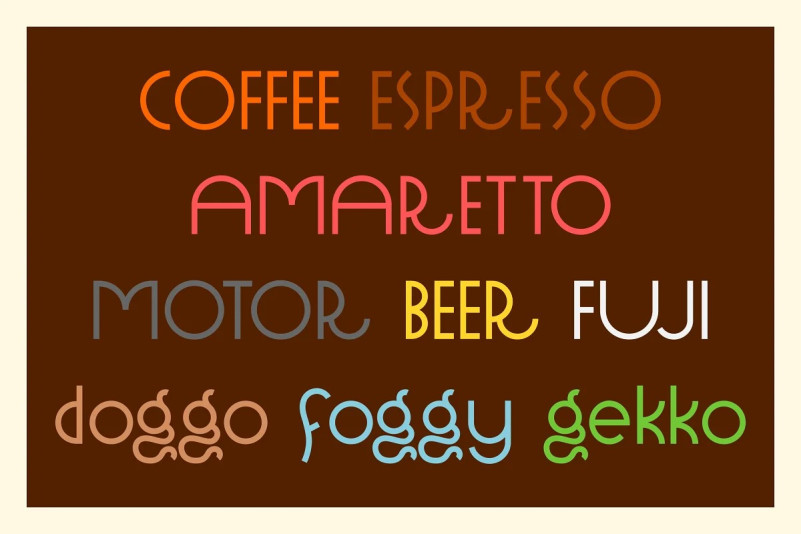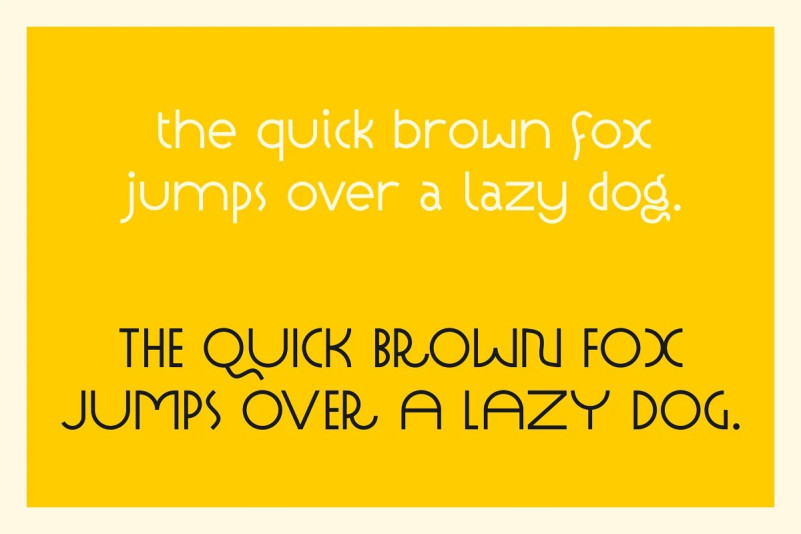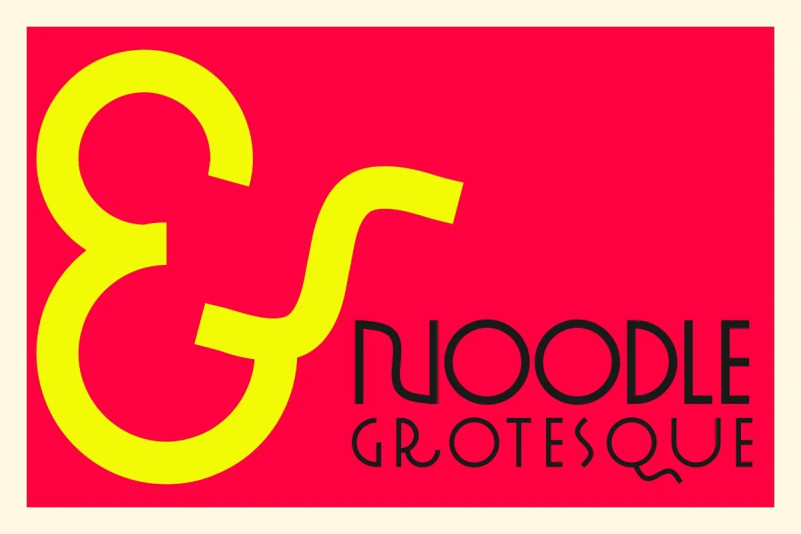
Noodle Grotesque Font
Noodle Grotesque Font is a funny display typeface that combines geometric rigidity with a noodle like bending here and there. It’s perfect for posters, magazine covers, restaurant menus, etc.